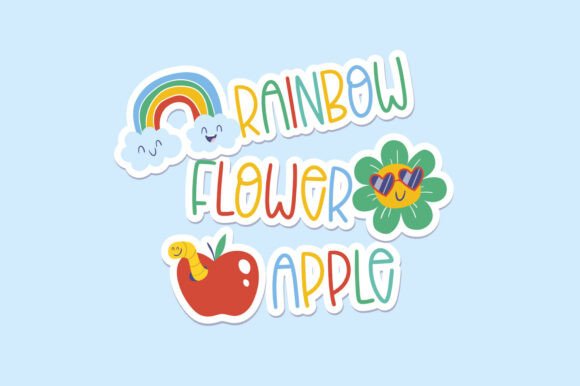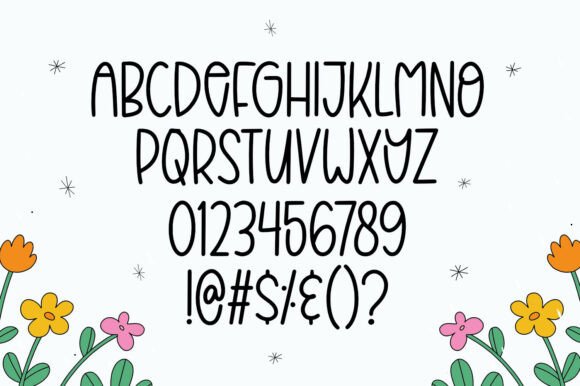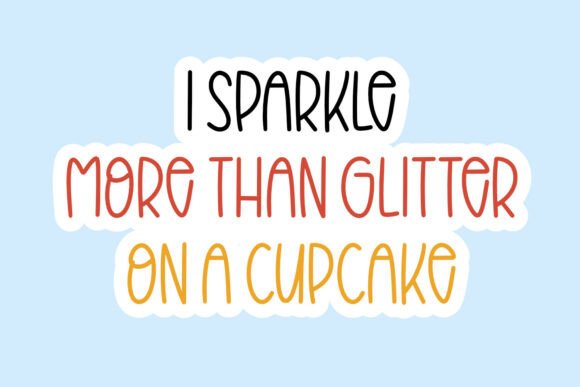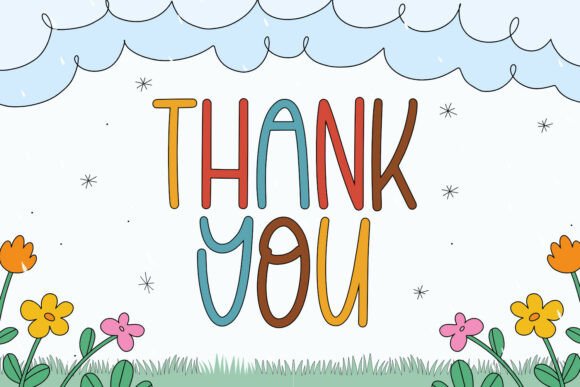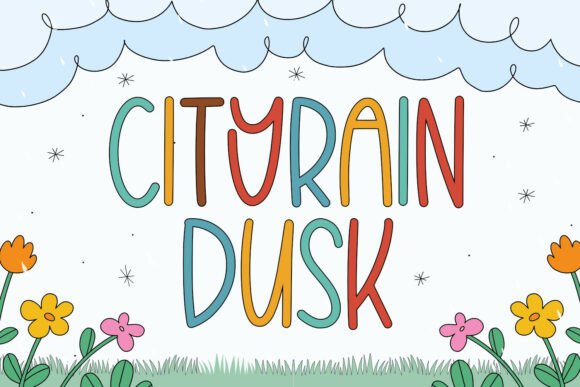
Introducing Cityrain Dusk Font: The Perfect Addition to Your Design Collection
Are you tired of using the same old fonts in your designs? Look no further! Cityrain Dusk Font is here to bring a touch of whimsy and playfulness to your creations. This charming font is perfect for designers and crafters who want to add a dash of sweetness to their work. In this article, we’ll dive into the features and benefits of Cityrain Dusk Font, and explore how it can elevate your designs.
The Characteristics of Cityrain Dusk Font
Cityrain Dusk Font is a unique and eye-catching font that boasts rounded edges, a bouncy baseline, and whimsical strokes. These characteristics give the font a friendly and approachable feel, making it perfect for designs that require a personal touch. The rounded edges and bouncy baseline create a sense of movement and energy, while the whimsical strokes add a touch of playfulness.
When you use Cityrain Dusk Font in your designs, you’ll notice that it has a distinctly handwritten feel. This is perfect for creating designs that require a personal and human touch, such as children’s books, social media graphics, and logos. The font’s charming and playful nature makes it an excellent choice for designers who want to create engaging and memorable designs.
Use Cases for Cityrain Dusk Font
So, what can you use Cityrain Dusk Font for? The possibilities are endless! Here are a few ideas to get you started:
- Children’s Books: Cityrain Dusk Font is perfect for children’s books, as it adds a touch of whimsy and playfulness to the text. The font’s rounded edges and bouncy baseline make it easy to read, even for young readers.
- Cute Logos: If you’re looking to create a logo that’s friendly and approachable, Cityrain Dusk Font is an excellent choice. The font’s unique characteristics make it perfect for logos that require a personal touch.
- Social Media Graphics: Cityrain Dusk Font is also great for social media graphics, as it adds a touch of sweetness and playfulness to your posts. Use it to create eye-catching graphics that will engage your audience and make your brand stand out.
Benefits of Using Cityrain Dusk Font
So, why should you choose Cityrain Dusk Font for your designs? Here are just a few benefits of using this charming font:
- Unique and Eye-Catching: Cityrain Dusk Font is a unique and eye-catching font that will make your designs stand out from the crowd.
- Playful and Whimsical: The font’s playful and whimsical nature makes it perfect for designs that require a touch of sweetness and personality.
- Easy to Read: Despite its playful nature, Cityrain Dusk Font is easy to read, making it perfect for designs that require a clear and concise message.
Tips for Using Cityrain Dusk Font
Here are a few tips for using Cityrain Dusk Font in your designs:
- Use it Sparingly: While Cityrain Dusk Font is perfect for adding a touch of whimsy to your designs, it’s essential to use it sparingly. Too much of a good thing can be overwhelming, so use the font to highlight key messages or add emphasis to your designs.
- Pair it with Other Fonts: Cityrain Dusk Font pairs well with other fonts, so don’t be afraid to experiment with different combinations. Try pairing it with a clean and simple font to create a striking contrast.
- Experiment with Colors: Cityrain Dusk Font looks great in a variety of colors, so don’t be afraid to experiment with different hues. Try using a bold and bright color to make your designs pop.
In conclusion, Cityrain Dusk Font is a charming and playful font that’s perfect for designers and crafters who want to add a touch of sweetness to their work. With its rounded edges, bouncy baseline, and whimsical strokes, this font feels like a handwritten note from a friend. Whether you’re creating children’s books, cute logos, or social media graphics, Cityrain Dusk Font is an excellent choice. So why not give it a try and see how it can elevate your designs?